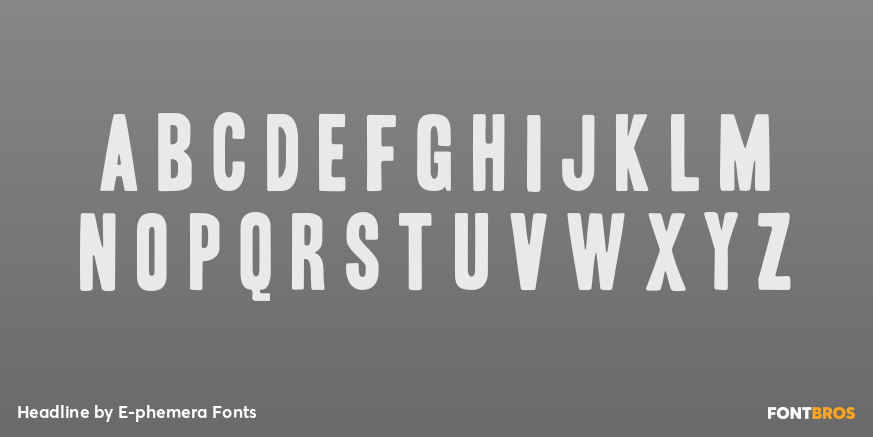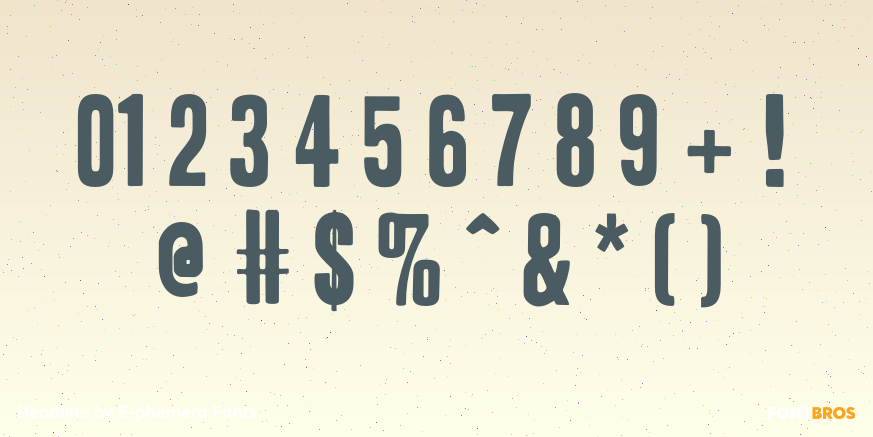
Headline
Font Family by E-phemera Fonts
Buy NowHeadline One was developed from 1920s editions of the Toronto Star newspaper in the archives of a Hollywood prop rental house. Headline Two was developed from 1930s editions of the Los Angeles Herald Examiner from the same archive. Both feature robust international character sets.
Headline Two has a complete alternate glyph set accessible through the OpenType feature of contextual alternates that will prevent two identical letters from being set next to each other most of the time, to help preserve the illusion of vintage type. Both fonts also feature some little doodads for use in re-creating the look of vintage newspapers.